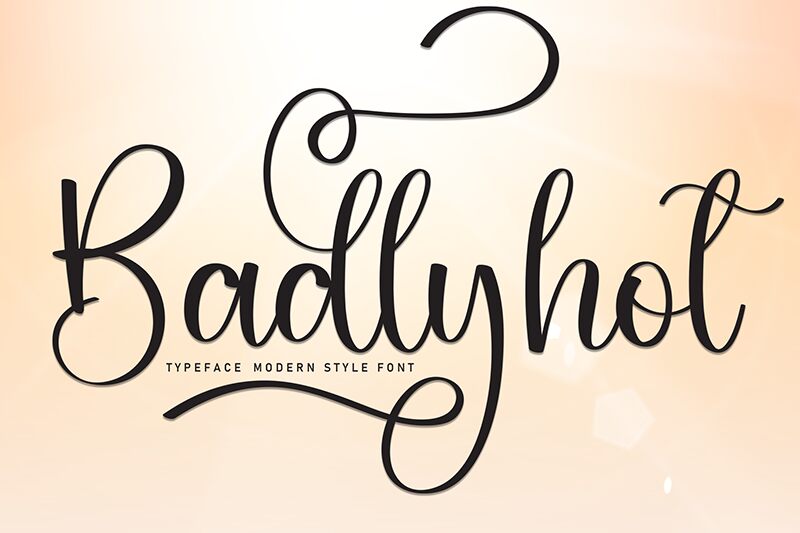
Badlyhot
Badlyhot font is a free calligraphy display font from Scratchones. The expressive character of the ununiformed shapes is both strong and gentle. The letters are quite dense which gives this font a bit more clarity compared to some similar fonts. This font can be placed in both classical/romantic environments or for more artistic designs.
Natural use cases include a large number of packaging and label items, poster headlines, greeting cards, invitation designs, photography editing, shop signs & windows, branding and label design for fashion brands (clothes & perfumes), logo ideas, t-shirts and even magazine covers.